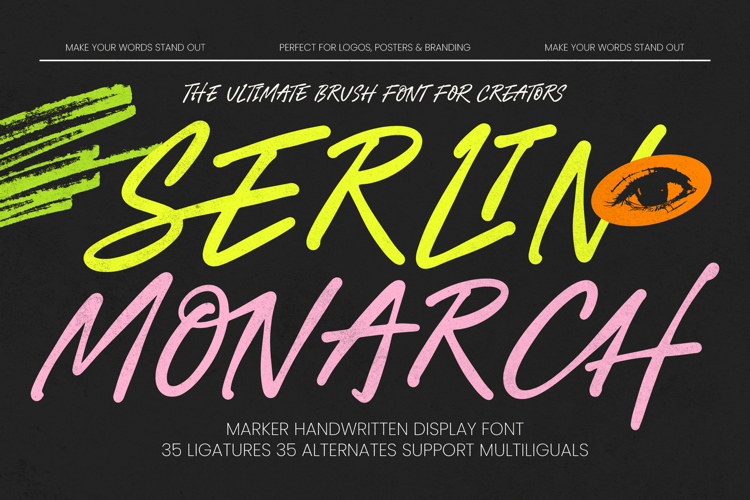
Serlin Monarch - Marker Handwritten Display Font
Elevate your visual identity with the raw, energetic power of Serlin Monarch - Marker Handwritten Display Font. This high-impact typeface captures the authentic soul of street-style marker strokes, offering a textured aesthetic that feels both and professional. By blending organic fluidity with bold letterforms, it ensures your message resonates with a sense of urgency and unfiltered creativity.
Master the art of dynamic design with a tool built for standout branding. Serlin Monarch - Marker Handwritten Display Font is the ideal application for streetwear labels, gritty social media graphics, and edgy product packaging. It is perfect for concert posters, apparel design, and editorial layouts where a bold, expressive is required to capture audience attention instantly and maintain a modern edge.
Expand your brand's reach with a versatile typographic solution that speaks a universal language. With its extensive multilingual support, Serlin Monarch - Marker Handwritten Display Font adapts seamlessly across global markets, making it incredibly versatile for international projects and cross-cultural campaigns. This functional depth ensures your visual identity remains consistent and powerful regardless of the linguistic or geographical landscape.